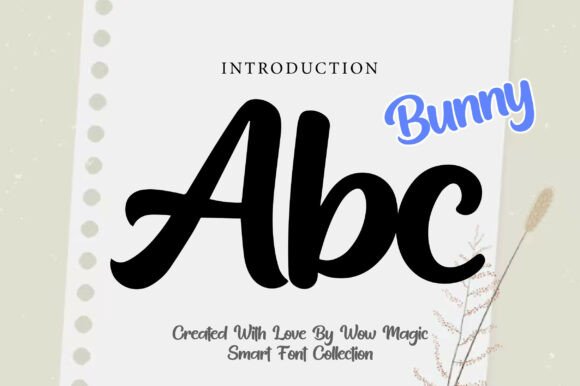
Bunny Font: The Ultimate Choice for Playful and Charming Designs
Are you looking for a font that can add a touch of warmth, fun, and personality to your designs? Look no further than Bunny Font, a sweet and charming bold script font that’s perfect for creating playful and lovable typography. With its thick strokes, rounded curves, and smooth flowing shapes, Bunny Font is the ideal choice for designers and crafters who want to make their designs stand out.
What Makes Bunny Font So Special?
Bunny Font is designed to bring a sense of joy and whimsy to your designs. Its unique combination of thick strokes and rounded curves creates a playful and charming look that’s sure to capture the attention of your audience. Whether you’re designing for kids, creating branding materials, or crafting social media graphics, Bunny Font is the perfect choice for adding a touch of personality to your typography.
Bunny Font is a versatile font that’s perfect for a wide range of design projects. Here are just a few ideas to get you started:
- Kids branding: Create fun and playful branding materials for kids’ products and services, such as toys, clothing, and educational resources.
- Product packaging: Add a touch of whimsy to your product packaging with Bunny Font, perfect for products aimed at kids or families.
- Birthday invitations: Create adorable birthday invitations that set the tone for a fun and playful celebration.
- Nursery decor: Use Bunny Font to create charming nursery decor, such as wall art, decals, and signs.
- Posters: Create eye-catching posters that showcase your message in a fun and playful way.
- Social media graphics: Add a touch of personality to your social media graphics, such as Facebook posts, Instagram stories, and Twitter headers.
- Cute logo concepts: Use Bunny Font to create adorable logo concepts for your business or brand.
Key Features of Bunny Font
So what makes Bunny Font so special? Here are just a few key features that set it apart:
- Thick strokes: Bunny Font features thick strokes that give it a bold and playful look.
- Rounded curves: The rounded curves in Bunny Font create a smooth and flowing shape that’s both charming and whimsical.
- Smooth flowing shapes: The smooth flowing shapes in Bunny Font make it perfect for creating playful and dynamic typography.
- Playful and lovable look: Bunny Font is designed to create a playful and lovable look that’s sure to capture the attention of your audience.
Why Choose Bunny Font?
So why choose Bunny Font for your design projects? Here are just a few reasons:
- Unique and eye-catching: Bunny Font is a unique and eye-catching font that’s sure to make your designs stand out.
- Playful and charming: Bunny Font is designed to create a playful and charming look that’s perfect for a wide range of design projects.
- Easy to read: Despite its playful look, Bunny Font is easy to read and understand, making it perfect for use in a variety of design projects.
- Versatile: Bunny Font is a versatile font that’s perfect for use in a wide range of design projects, from kids branding to social media graphics.
In conclusion, Bunny Font is a sweet and charming bold script font that’s perfect for designers and crafters who want to add a touch of warmth, fun, and personality to their designs. With its thick strokes, rounded curves, and smooth flowing shapes, Bunny Font is the ideal choice for creating playful and lovable typography. Whether you’re designing for kids, creating branding materials, or crafting social media graphics, Bunny Font is the perfect choice for making your designs stand out.